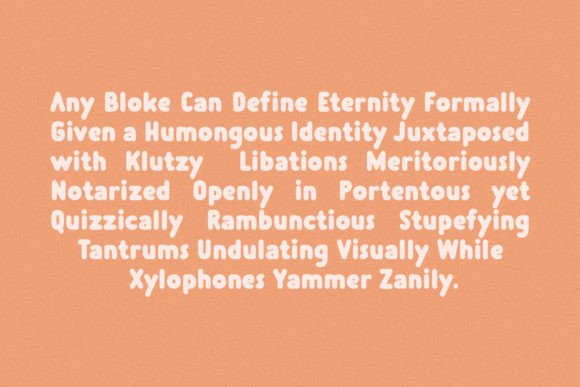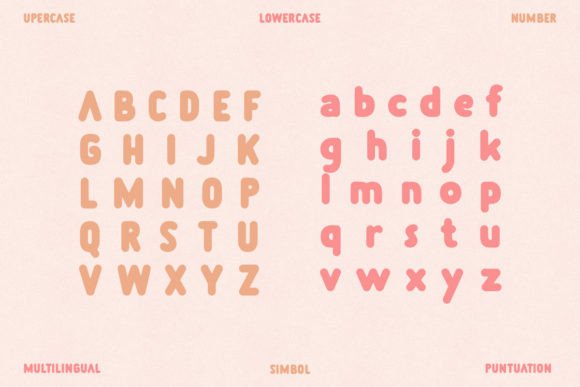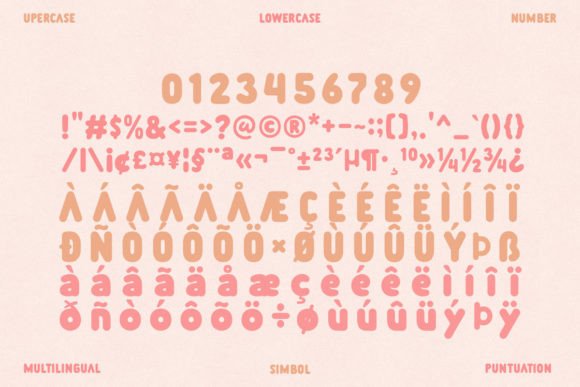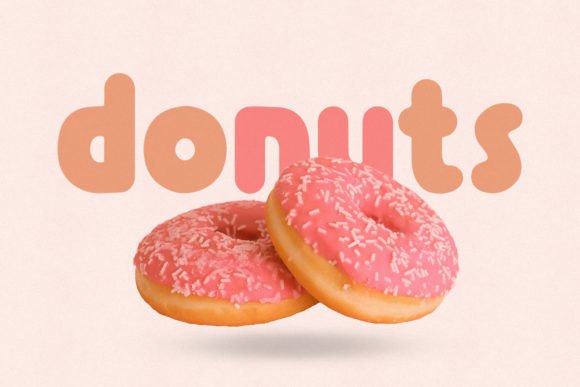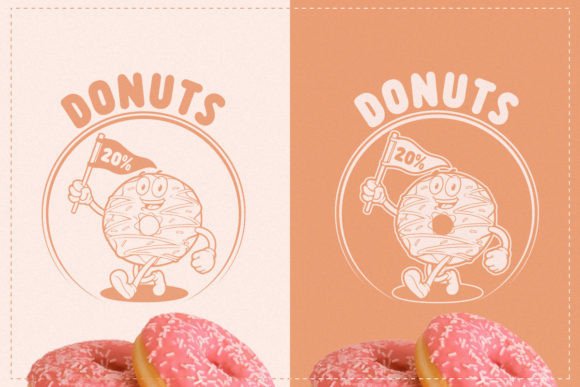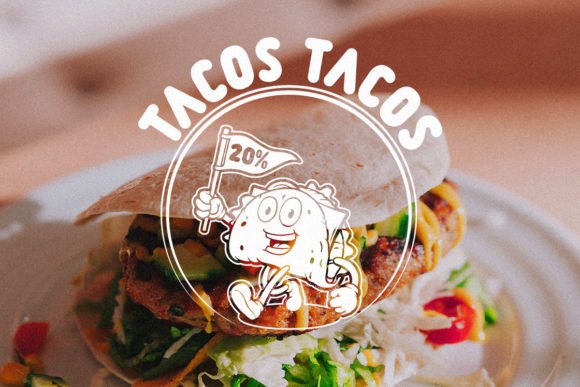
Introduction to Plopin Font
Poplin is a sweet and playful display font with nicely rounded and friendly characters.
This font is great for logos, posters, clothing, branding, party invitations, and many other cool design projeects .
Key Features of Plopin Font
Why Choose Plopin Font?